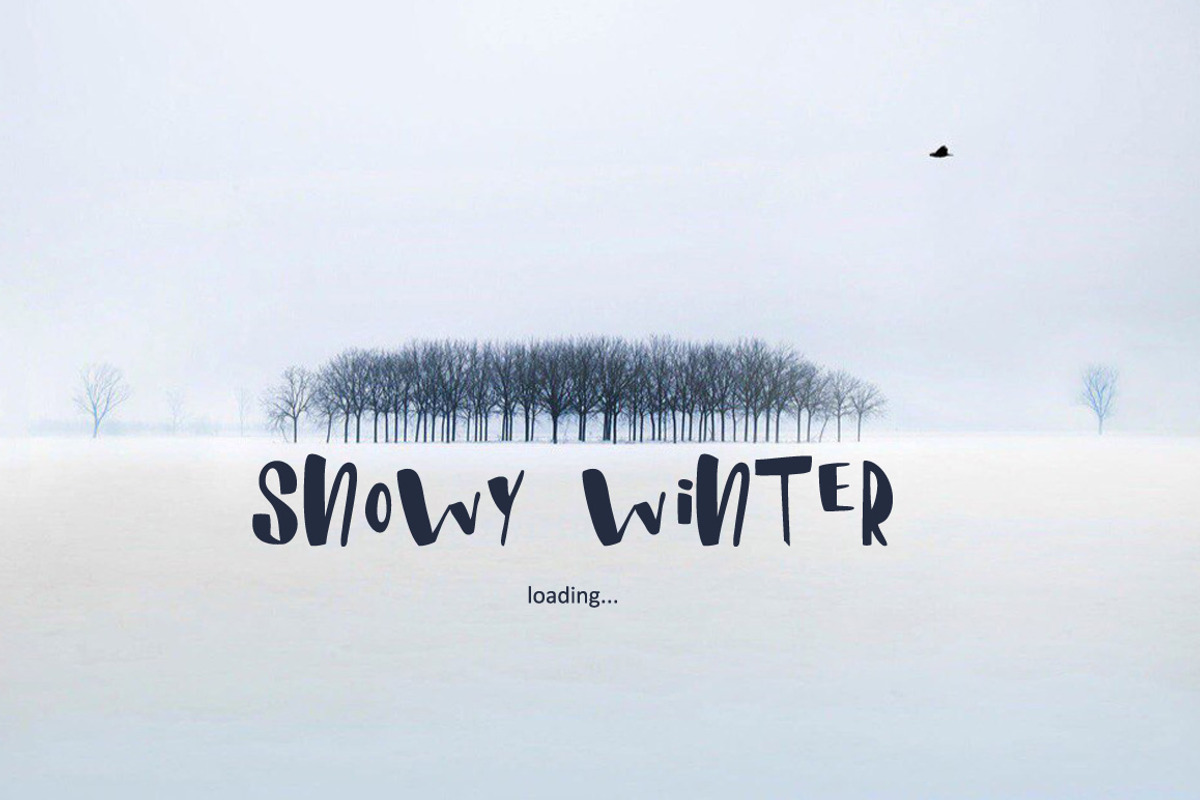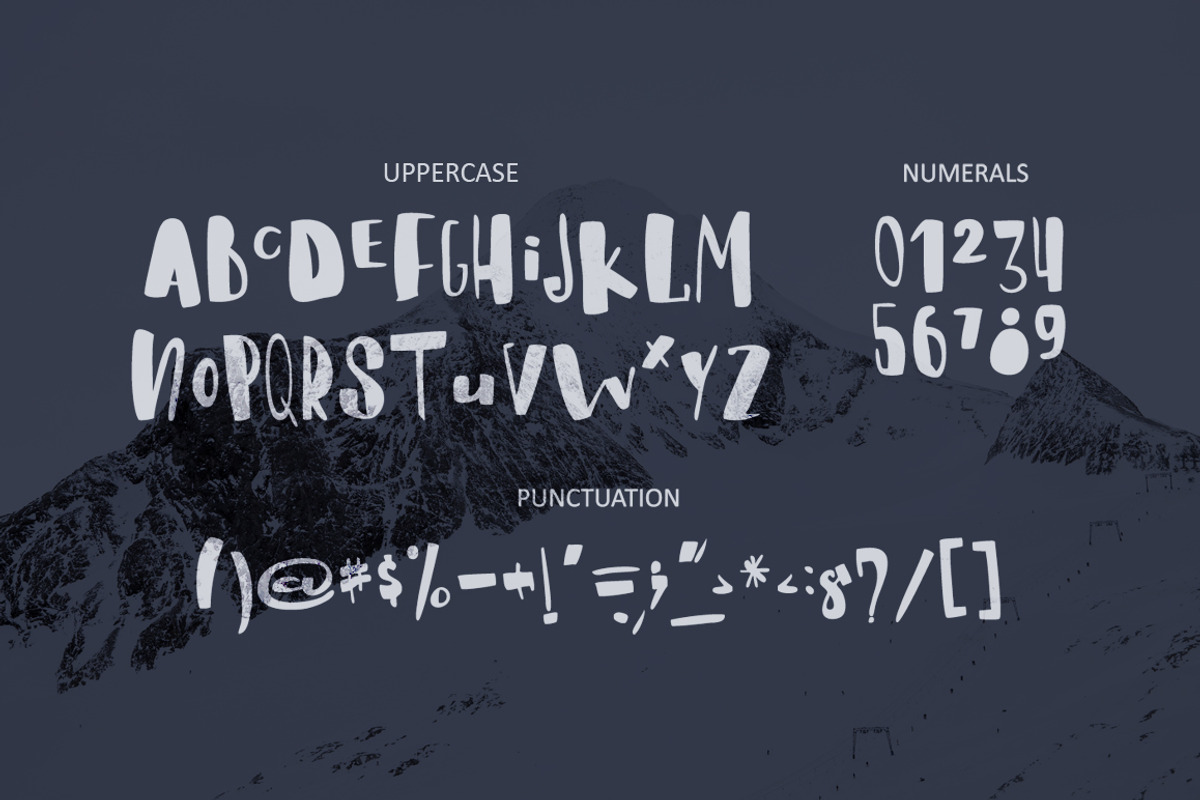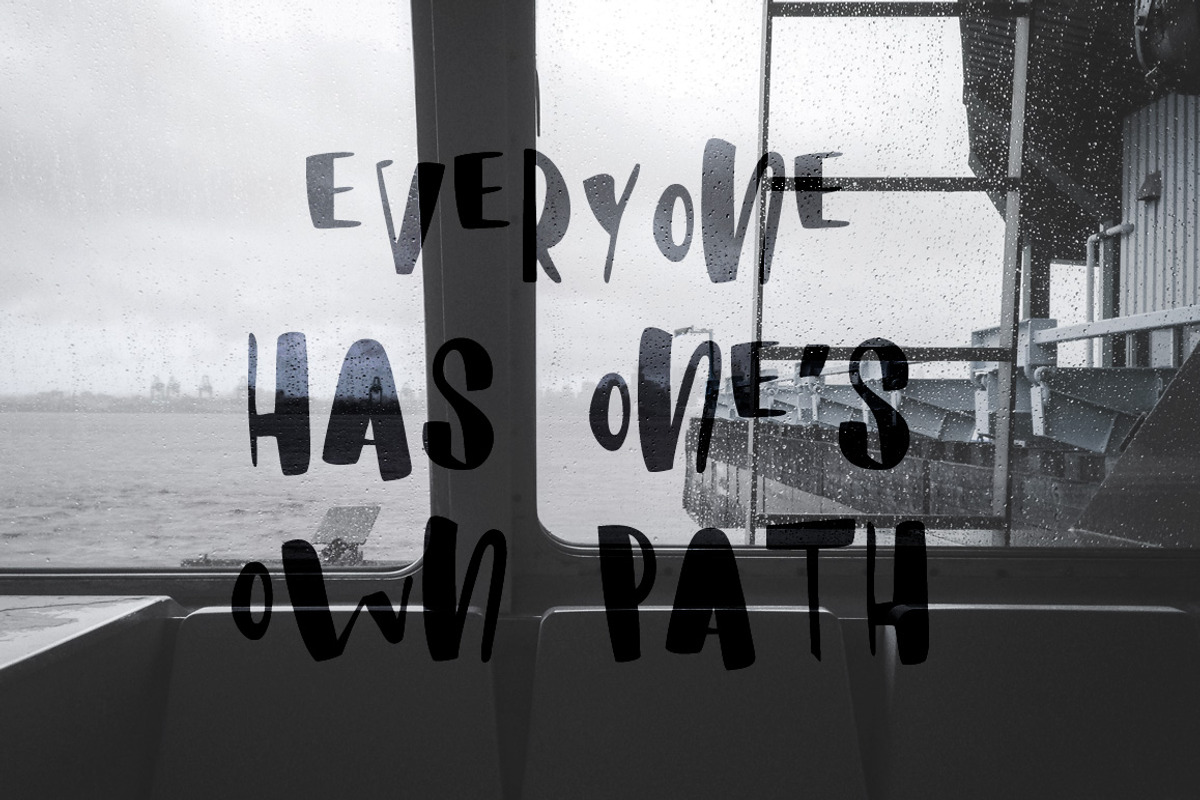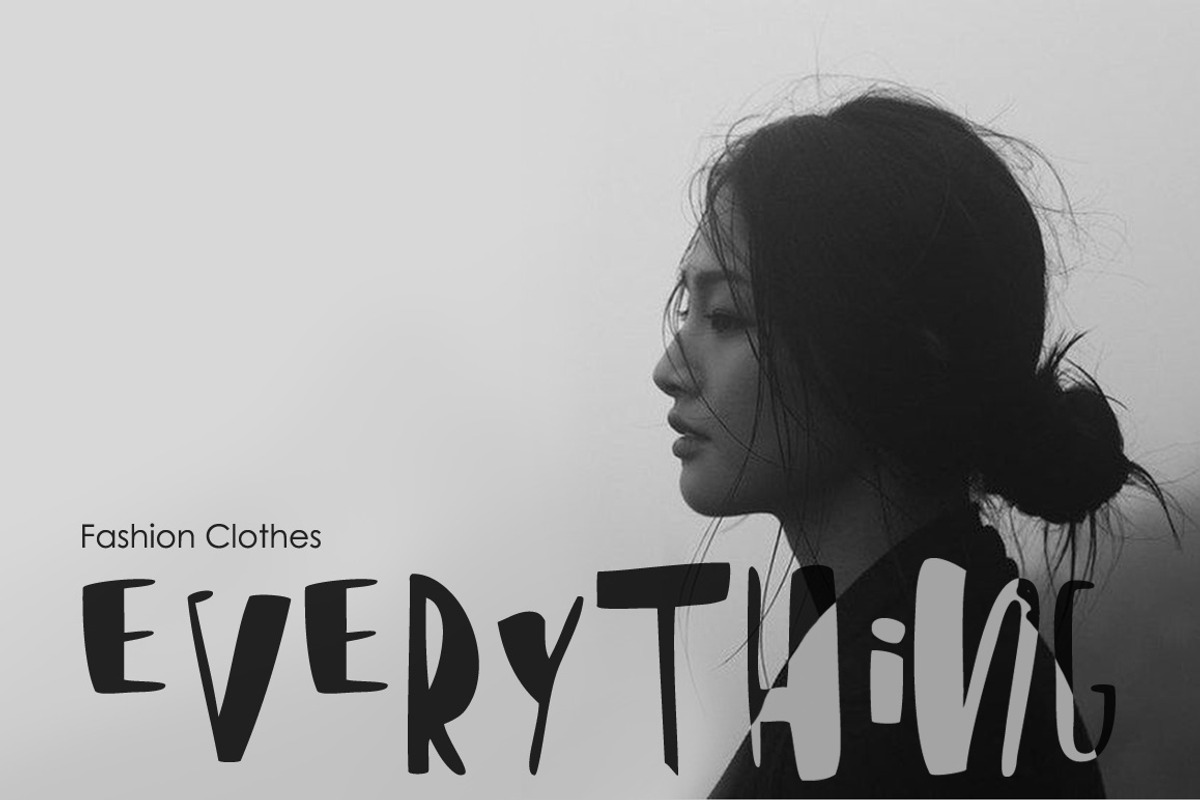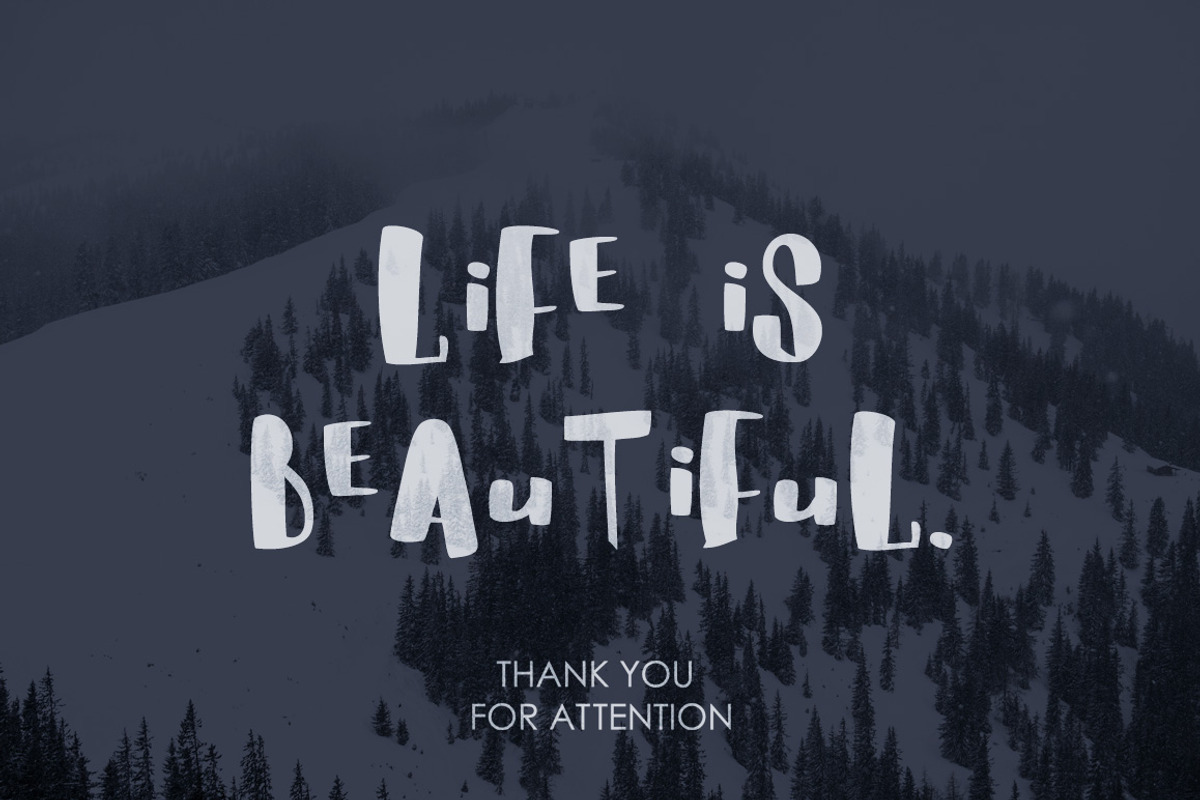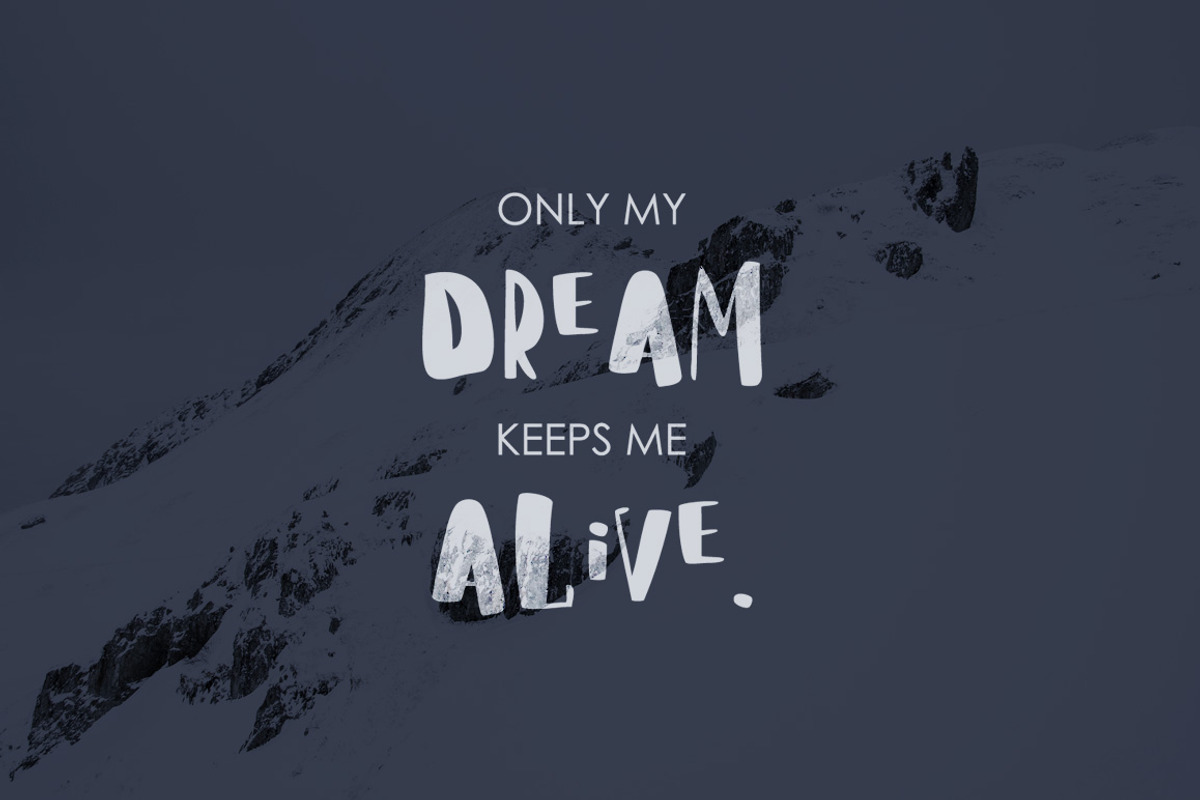
Whitey Handwritten brush font.
Whitey Handwritten brush font. by Wewhitelist is a font selected for branding, posters, packaging, typography.
Whitey Handwritten brush font. by Wewhitelist fits naturally into Branding, posters, packaging, typography.